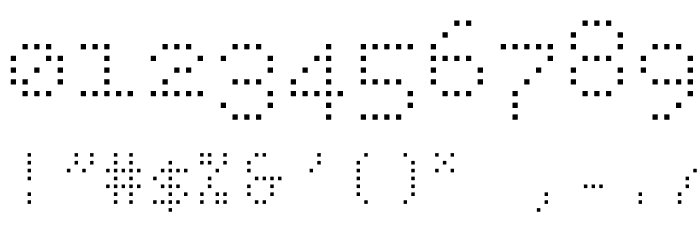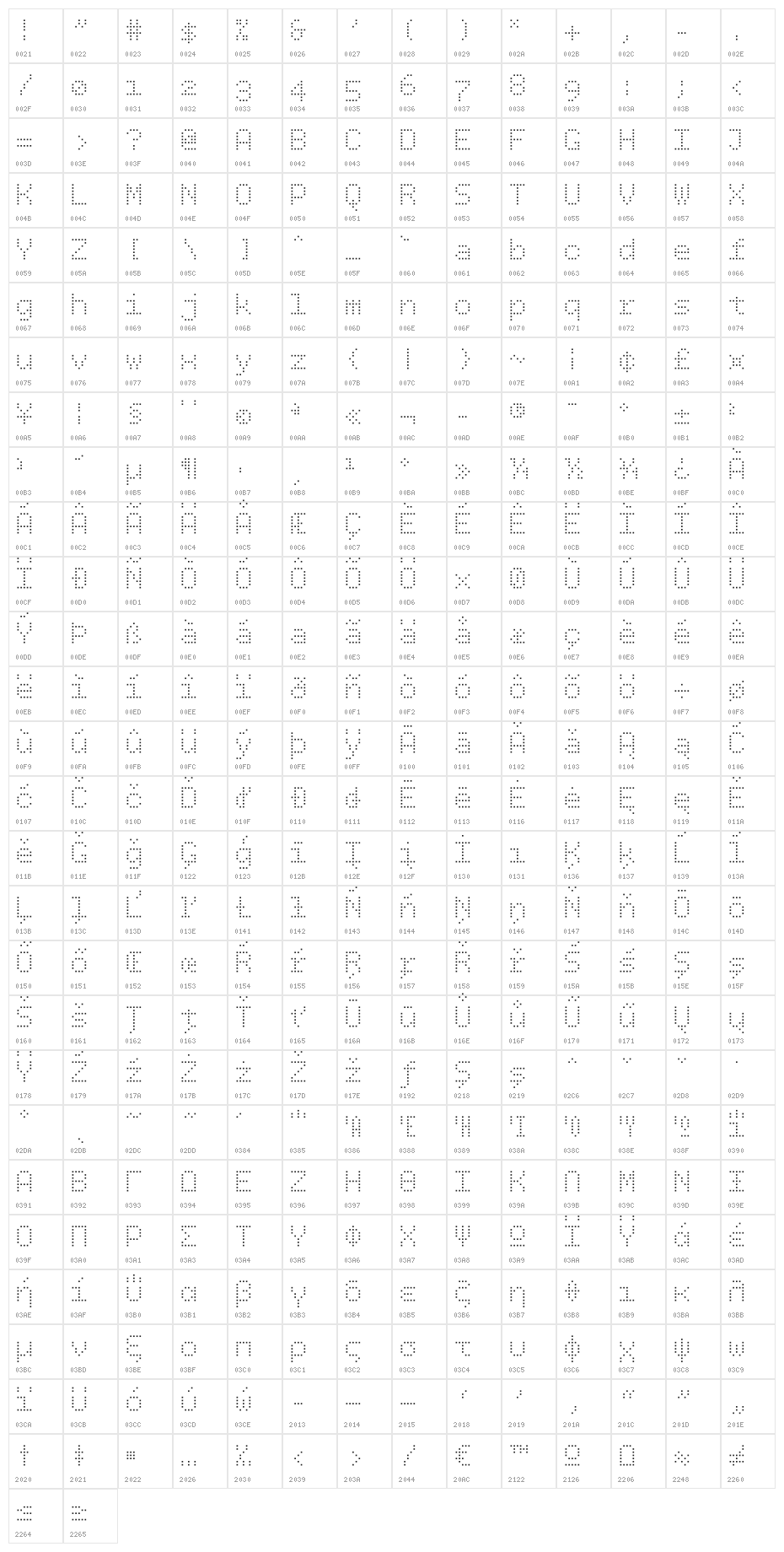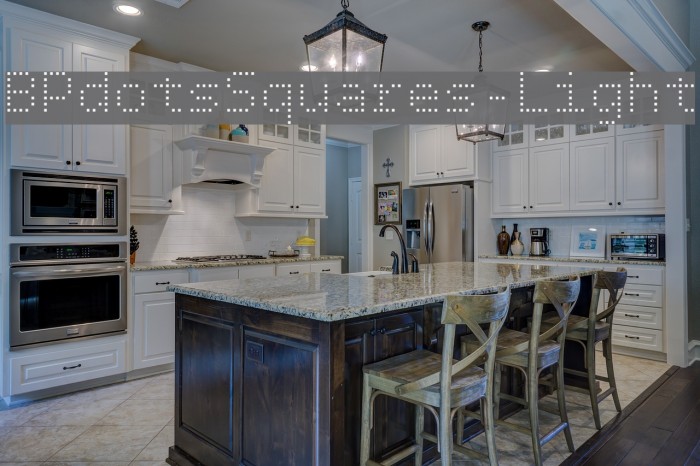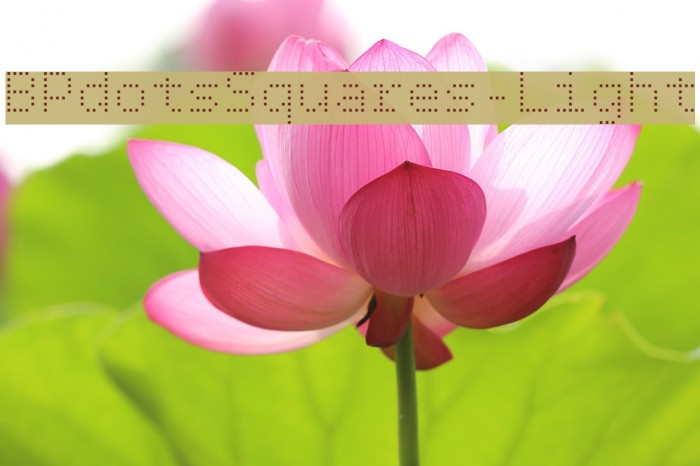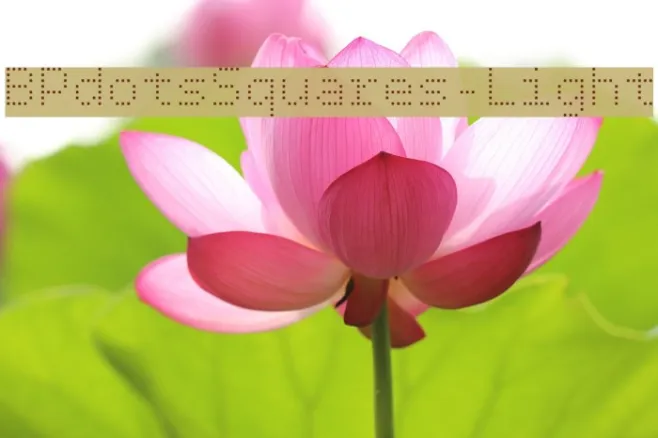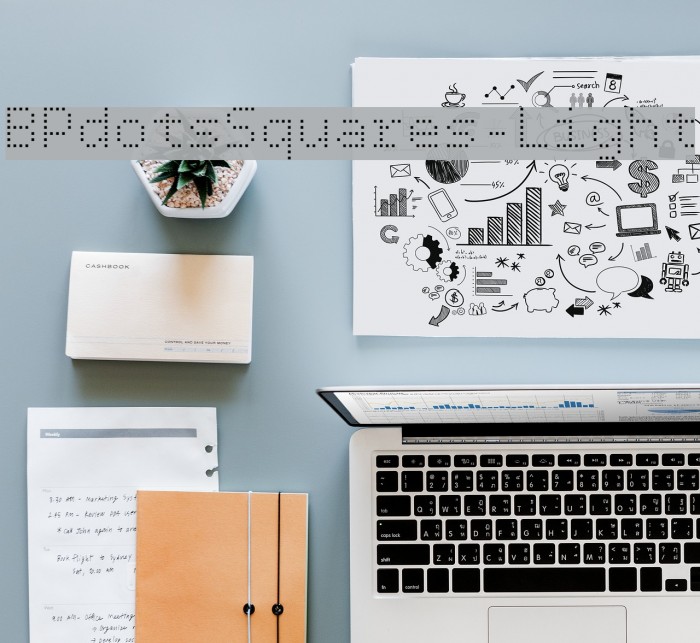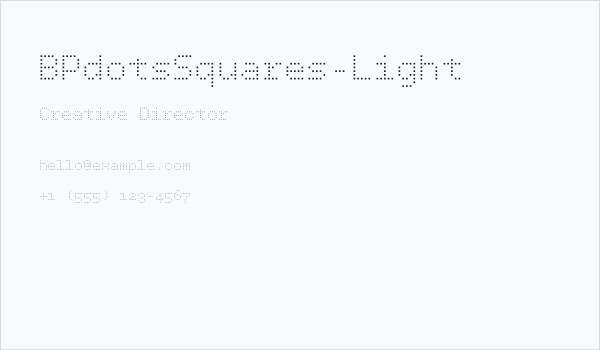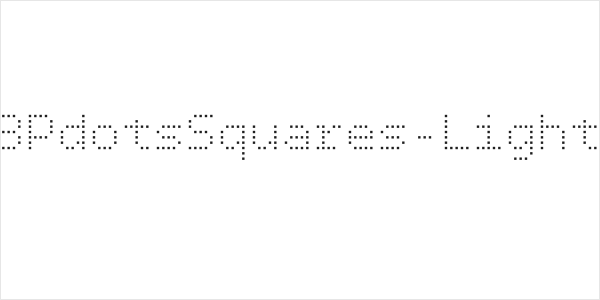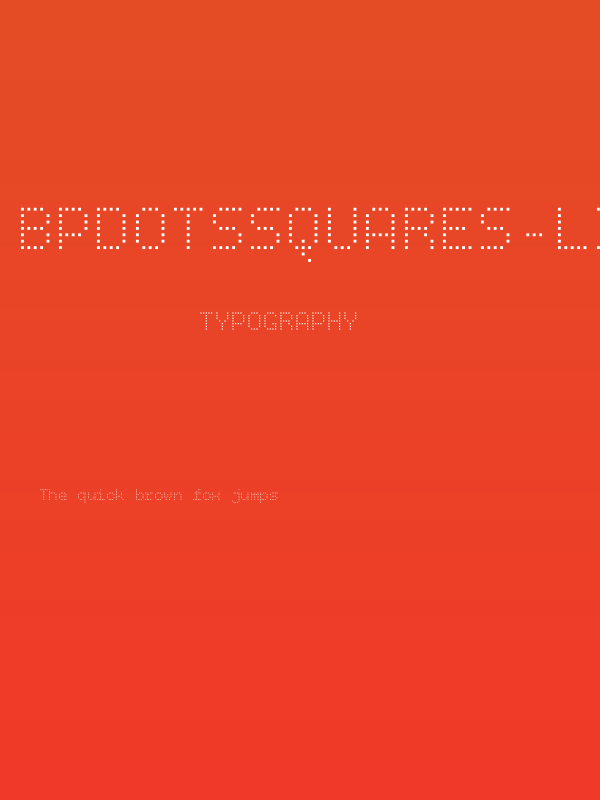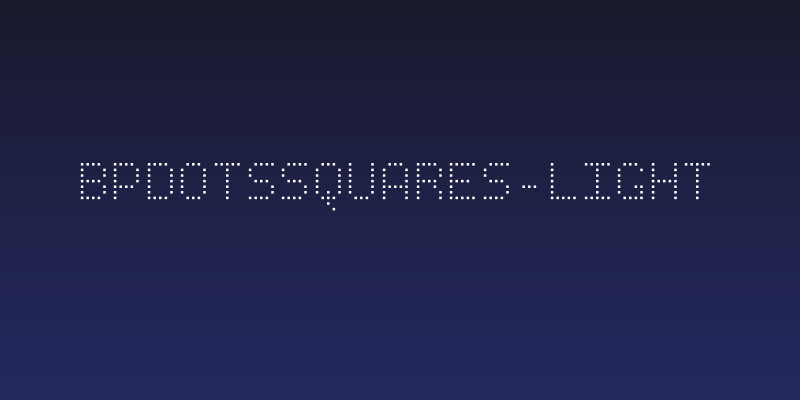
BPdotsSquares-Light Font
BPdotsSquares-Light Description
This font features a unique dotted design, where each character is composed of small, evenly spaced dots forming the shape of letters and numbers. The style is geometric and modern, with a playful yet structured appearance. The uppercase and lowercase letters maintain a consistent height and width, providing a uniform look. The numbers and special characters follow the same dotted pattern, ensuring cohesion across all elements. This font is particularly eye-catching due to its unconventional approach, making it suitable for creative and digital projects.
| Use Case | Logos, Headlines, Digital Art |
| Proposed Projects | Ideal for digital art, posters, creative branding, and tech-themed designs. |